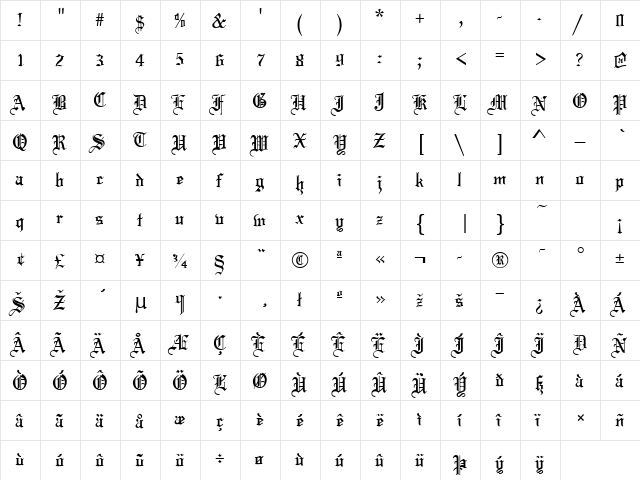
TOCCATA Regular
Design Context for TOCCATA Typeface
TOCCATA is a composed and adaptable typeface that performs quietly and consistently across a wide range of design contexts.